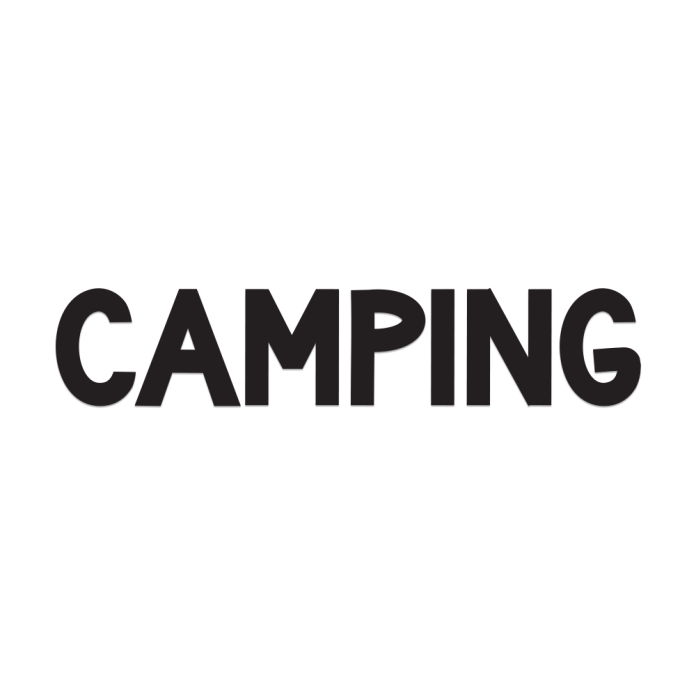
Camping is a bold and adventurous display font inspired by the spirit of nature and outdoor exploration. With a rustic charm and strong character, this font is perfect for branding outdoor gear, crafting nature-inspired logos, or creating eye-catching headlines that call for adventure.
Whether you're designing for a hiking club, camp event, or eco-brand, Camping brings the wild into your work.
Bold Display Typeface
All Caps with Unique Character
Perfect for Outdoor Branding, Logos & Posters
Punctuation & Numerals
Multilingual Support
Bring the wild to life with Camping – where typography meets the great outdoors.